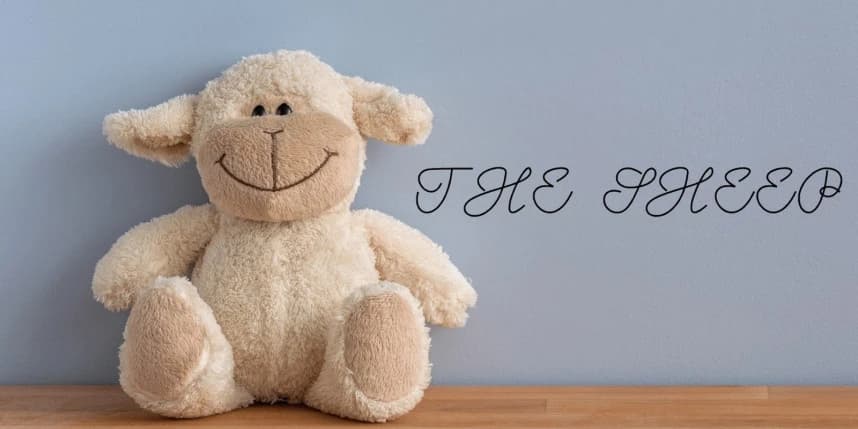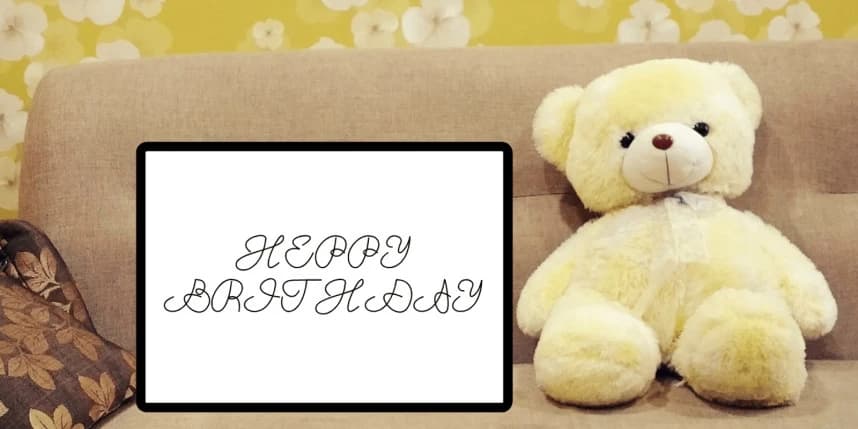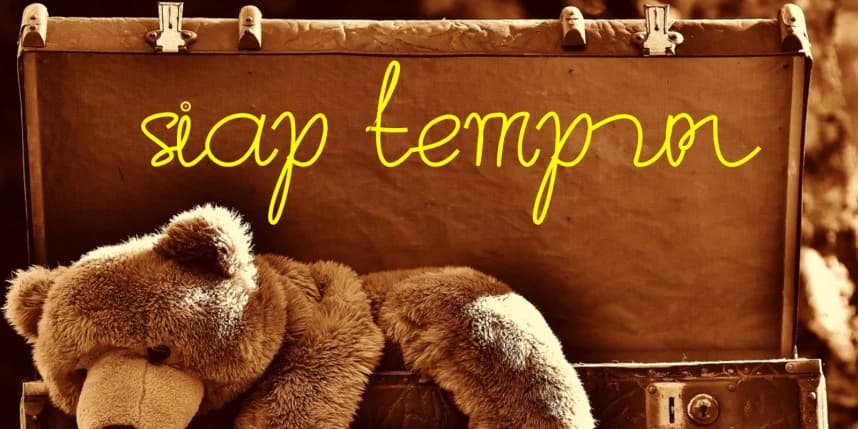
Attune Script Font is an elegant and harmonious typeface designed to strike a balance between modern aesthetics and visual comfort. With smooth yet confident letterforms, Attune is ideal for branding, editorials, logos, invitations